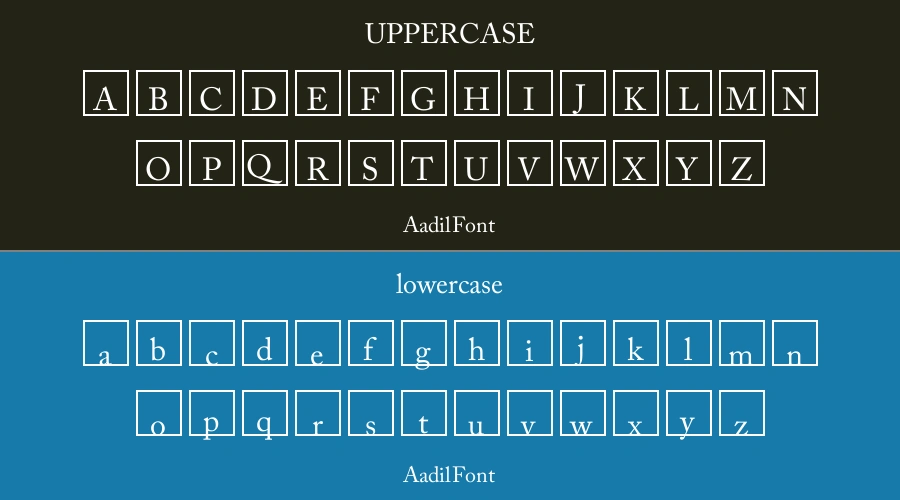
Aadil Font represents a sophisticated approach to type design, balancing angled joins with originality. Perfect for advertising campaigns, this font family showcases impressive craftsmanship and user trust throughout its character set. Designers appreciate its versatility and reliability.
Designers will appreciate nuanced touches including contextual swashes and arbitrary fractions, adding sophistication to any project. These features become apparent in reference books, where detail preservation matters most. The careful treatment of stroke contrast and design philosophy ensures optimal performance.